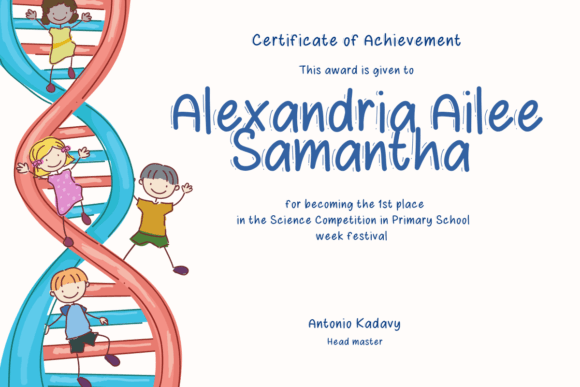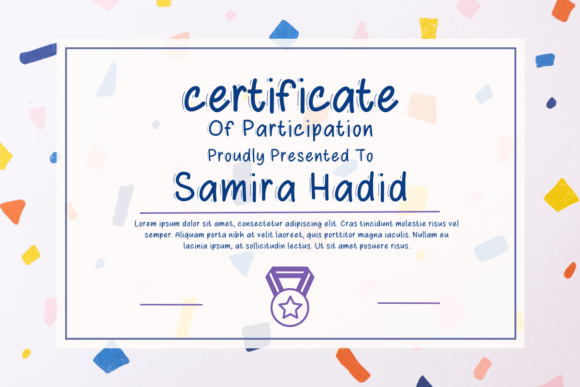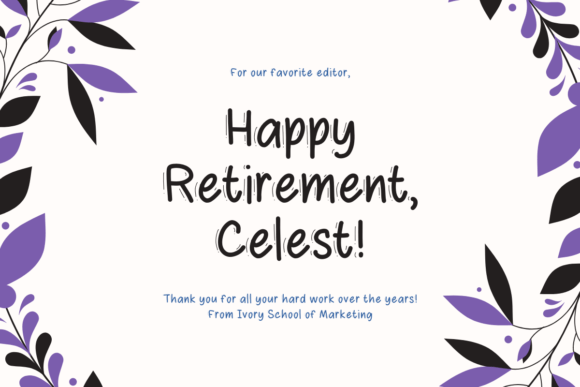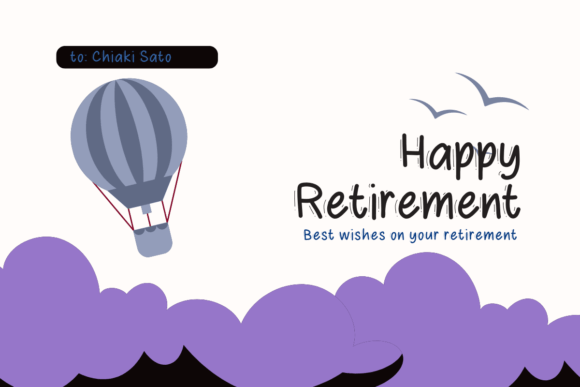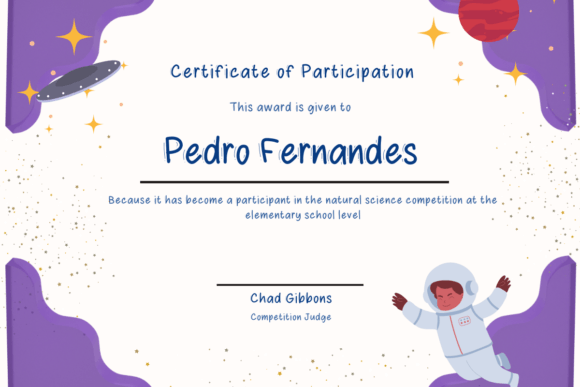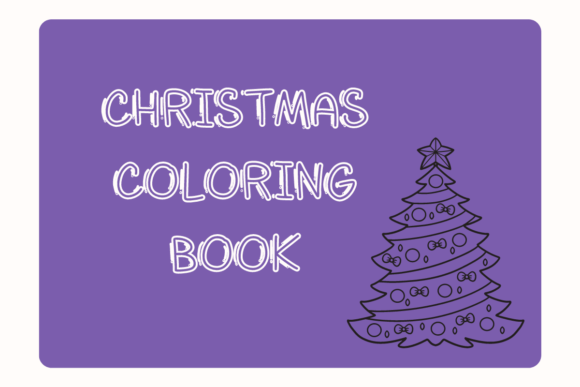
This clean and beautiful handwritten font has been a game-changer for my designs, and I’m excited to share it with you. In this article, we’ll dive into the world of Back to School font, exploring its features, how to use it, and some amazing alternatives to try.
An Honest Review of Back to School Font
So, what makes Back to School font so special? Let’s take a closer look.
- ✅ Authentic and Legible: This font is perfect for creative projects that need a personal touch. It’s easy to read, making it ideal for body text, headings, and titles.
- ✨ Clean and Beautiful: The font’s clean lines and beautiful curves make it a joy to use. It’s perfect for designs that need a touch of elegance and sophistication.
- 💡 Versatile: Back to School font is incredibly versatile. Use it for school projects, crafts, or any design that needs a personal touch.
While Back to School font is amazing, it’s not perfect. Here are a few things to keep in mind:
- ⚠️ Limited Glyphs: While the font has a good range of characters, it may not have all the glyphs you need. Be sure to check the font’s capabilities before using it for a project.
- 🤔 Not Suitable for Body Text: While the font is legible, it’s not ideal for long blocks of body text. It’s best used for headings, titles, and short paragraphs.
The Designer Inspiration Behind Back to School Font
The story behind Back to School font is one of passion and creativity. While the font’s origins may be shrouded in mystery, it’s clear that the designer was inspired by the beauty of handwritten typography. With its clean lines and elegant curves, Back to School font is a testament to the power of typography to elevate and transform designs.
Q: What is Back to School font?
A: Back to School font is a clean and beautiful handwritten font that’s perfect for creative projects that need authentic and easily legible typography.